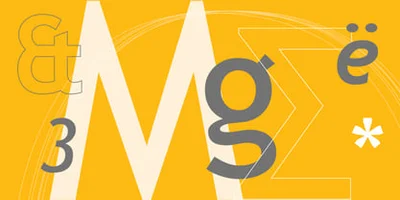
Averta vs Trebuchet MS
Averta and Trebuchet MS are both sans-serif typefaces sharing a warm foundation. Where Averta leans geometric, modern, Trebuchet MS brings humanist, tech. Compare which suits your Ui project.
Design overlap:20%
| Feature | Averta | Trebuchet MS |
| Language Support | latin, latin-extended, cyrillic, greek | latin, latin-extended, cyrillic, greek |
| Source | Kostas Bartsokas | Microsoft |
Recommended: Averta
- geometric, modern design character
- Suited for Branding and Corporate
- From kostas-bartsokas
Consider: Trebuchet MS
- humanist, tech design character
- Suited for Web and Screen
- From microsoft